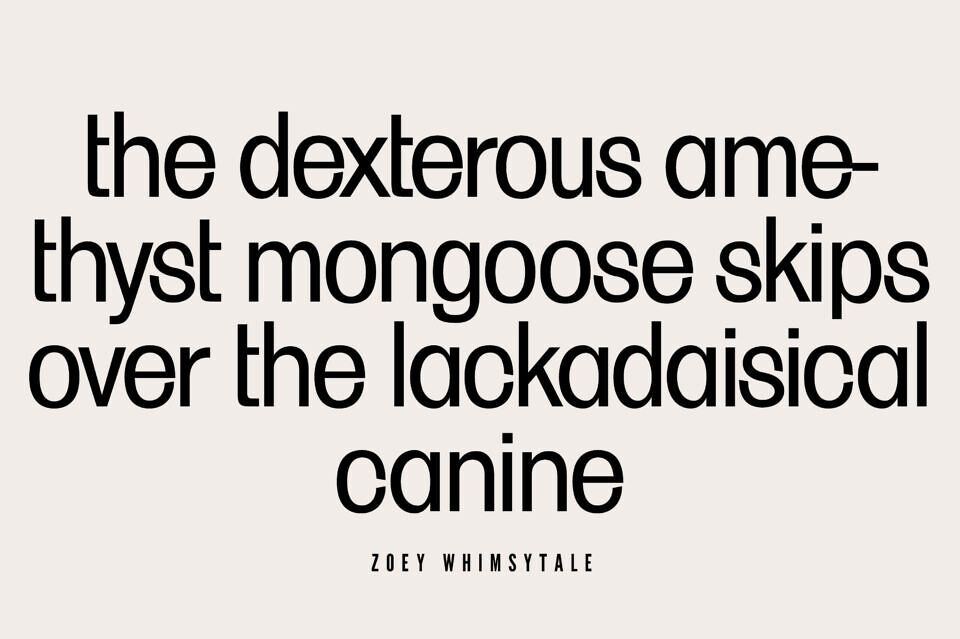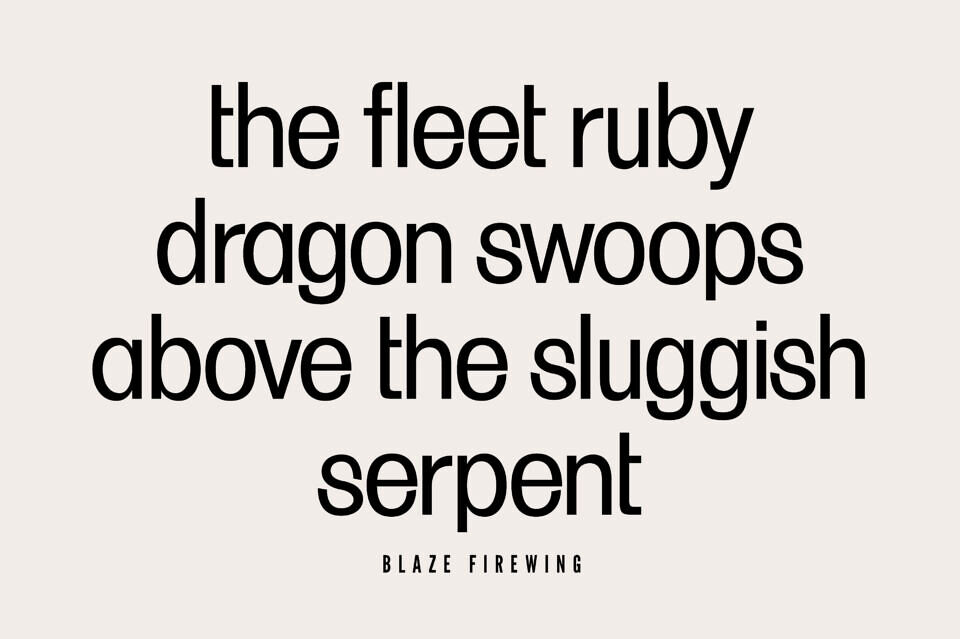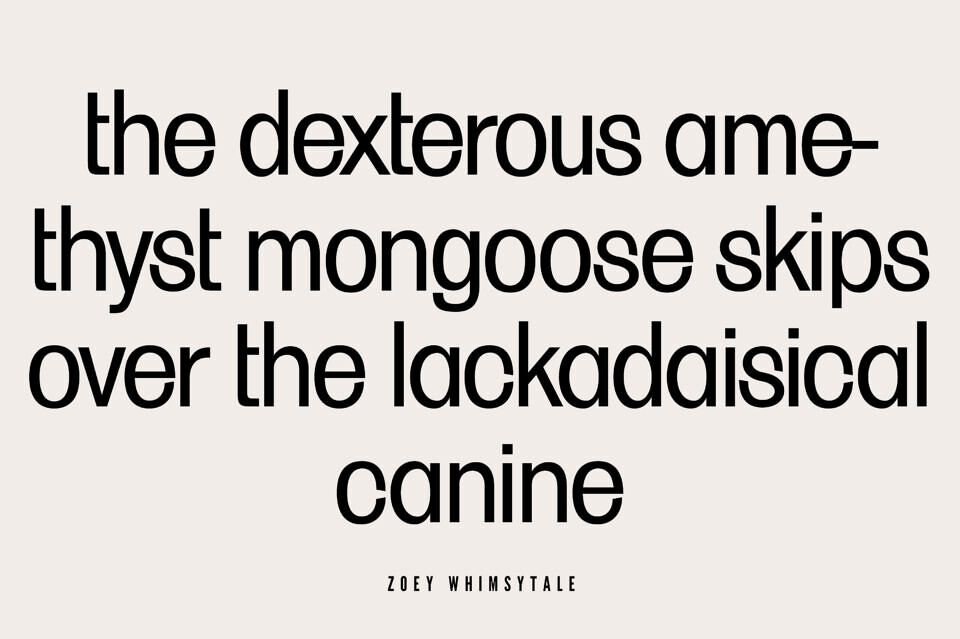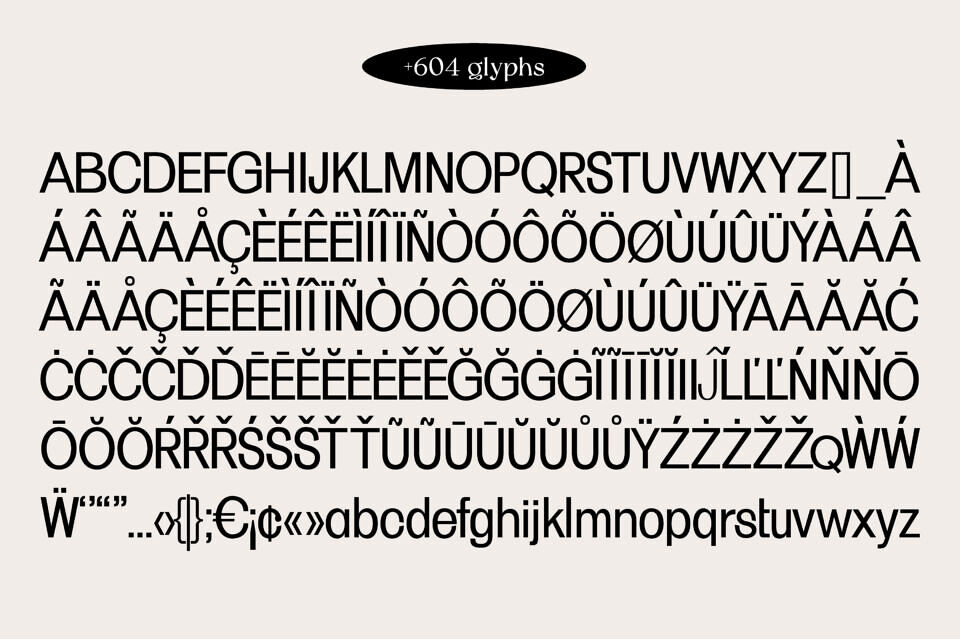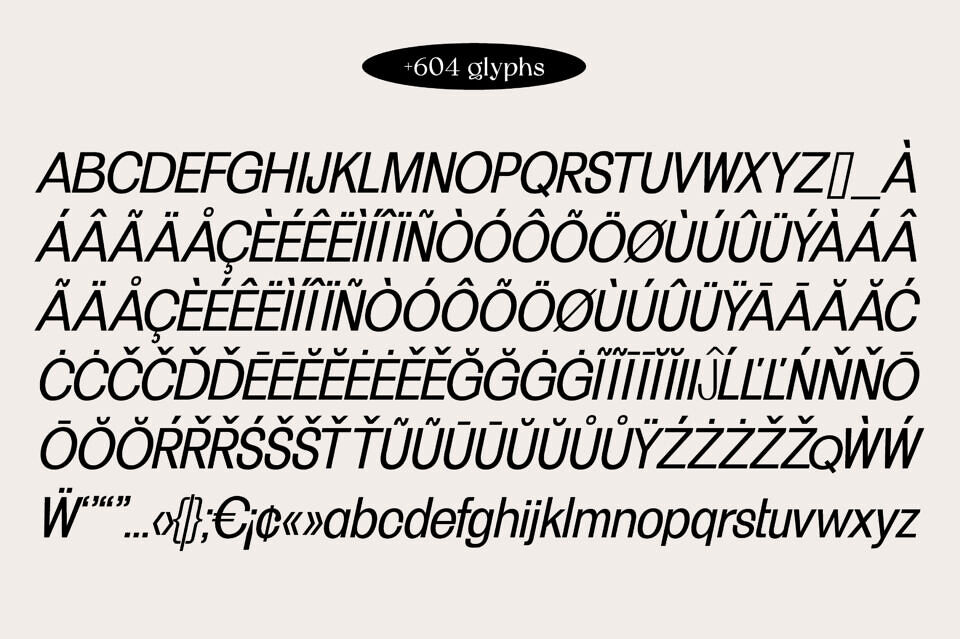
Experience the essence of minimalism and modernity with “Haneen,” a chic and delicate sans-serif typeface. Its clean lines and balanced proportions create timeless elegance, making it ideal for various design projects.
Embrace simplicity, sophistication, and versatility with “Haneen” to elevate your creativity and leave a lasting impression on your audience. Redefine your design approach and unlock the potential of minimalist beauty with this captivating typeface.